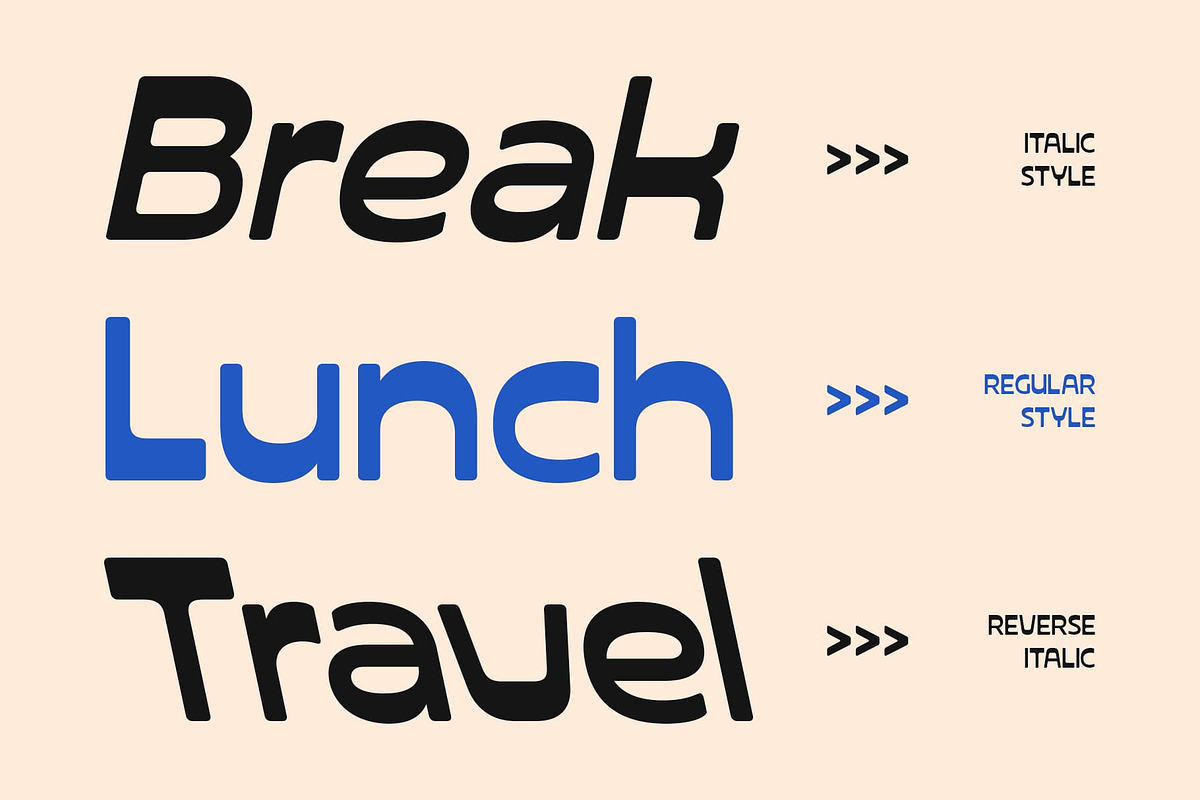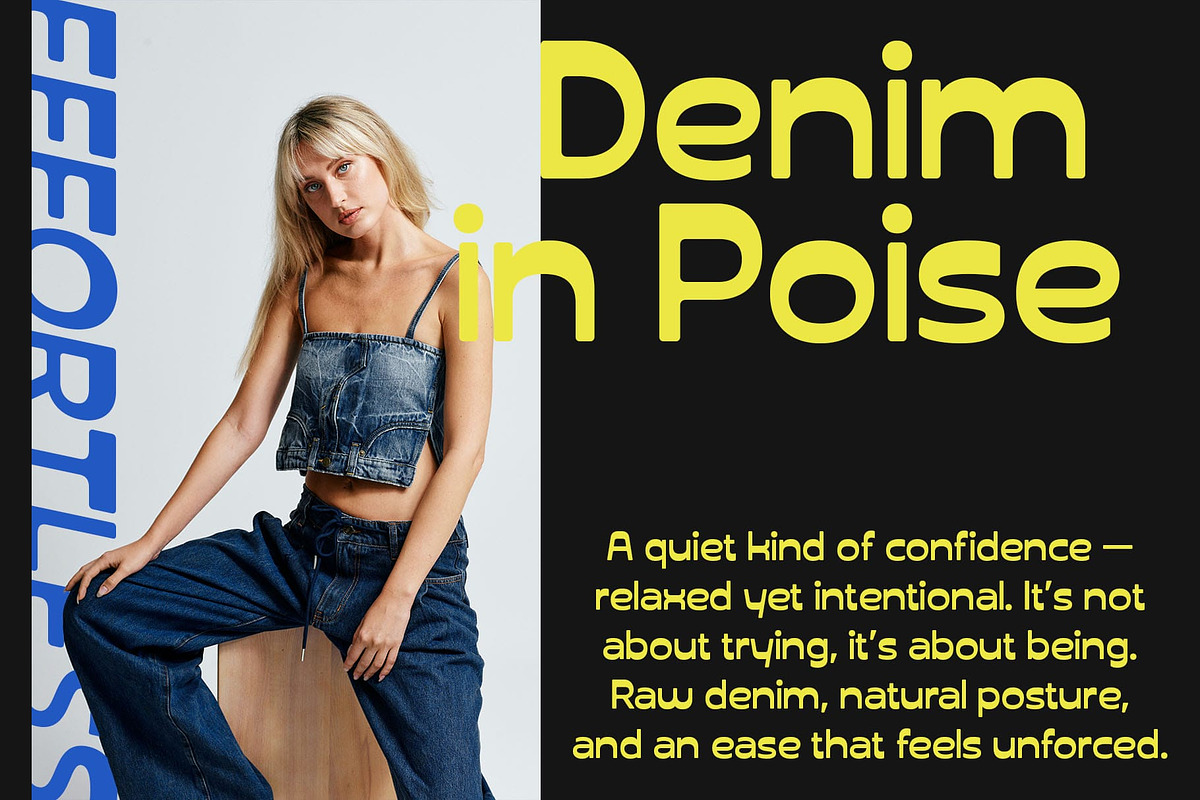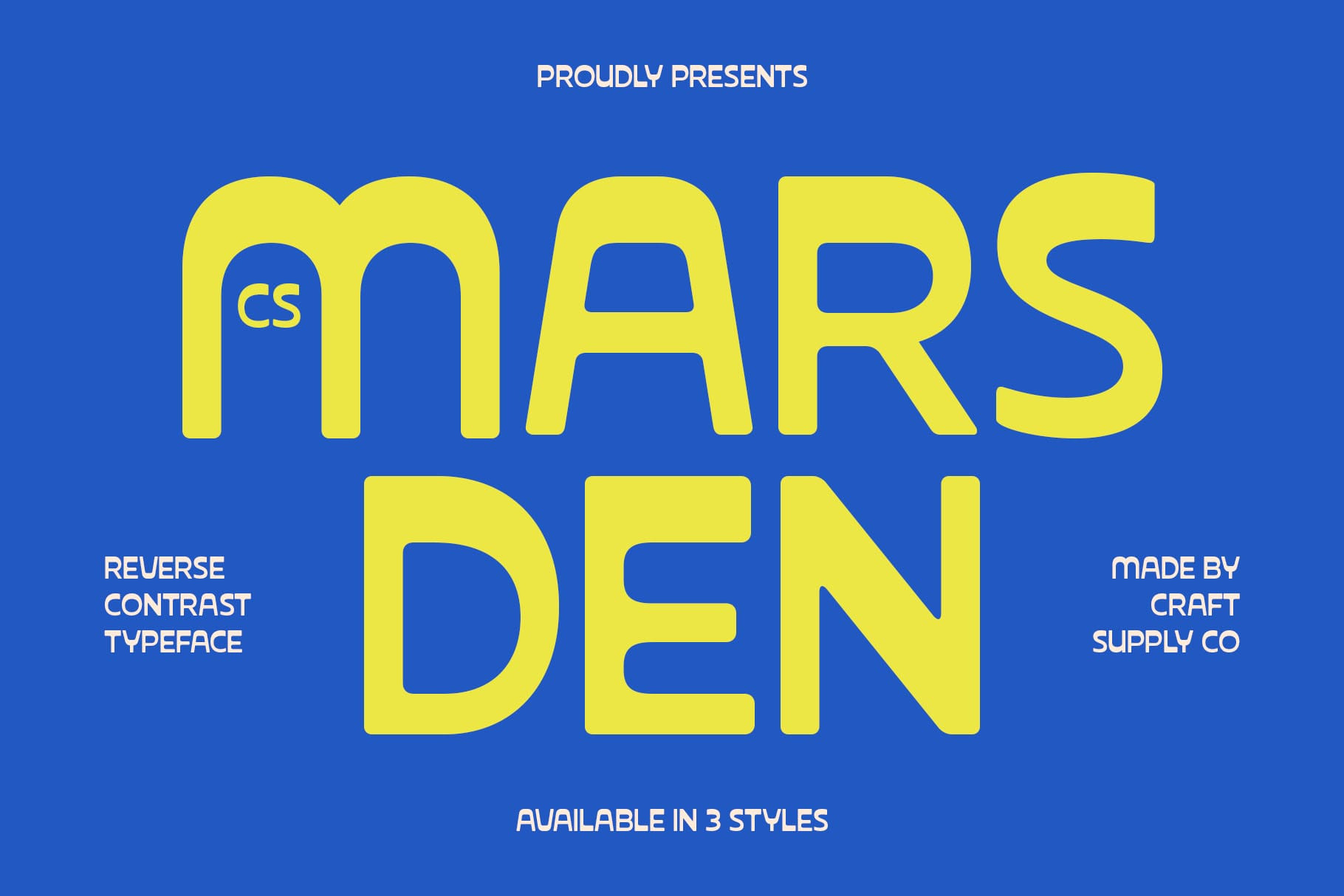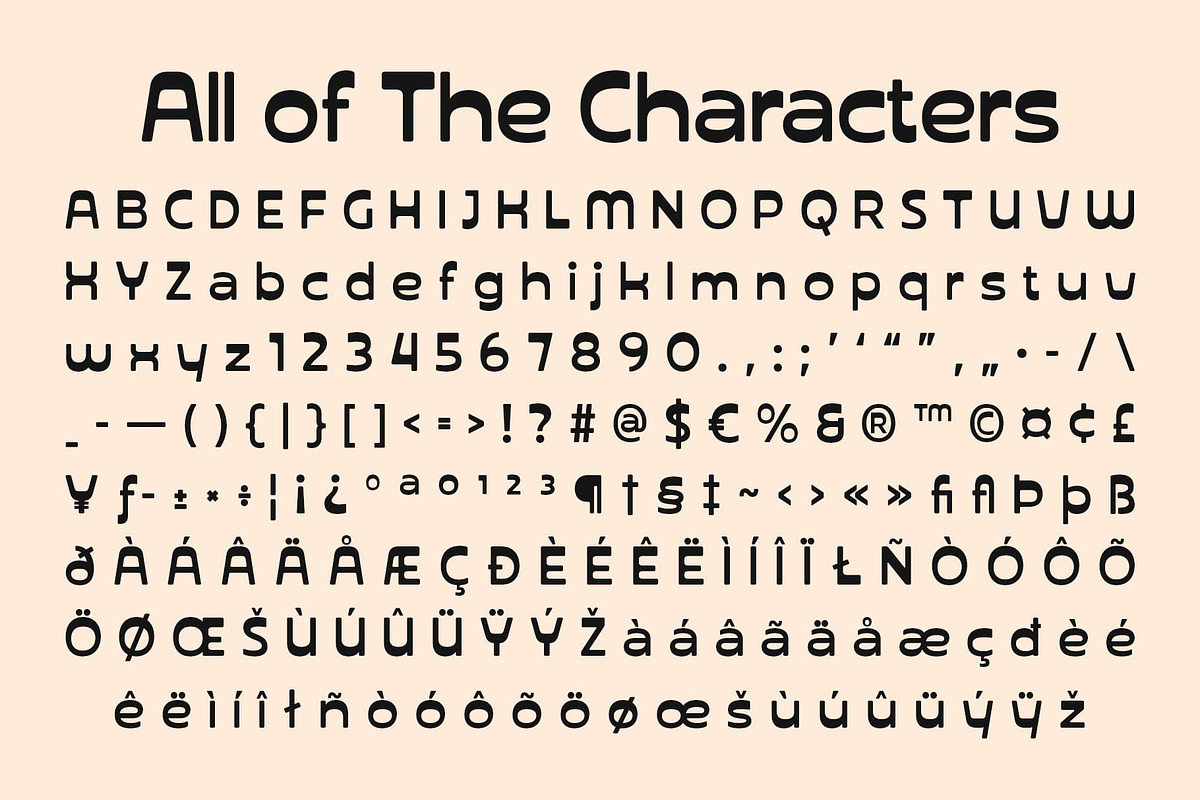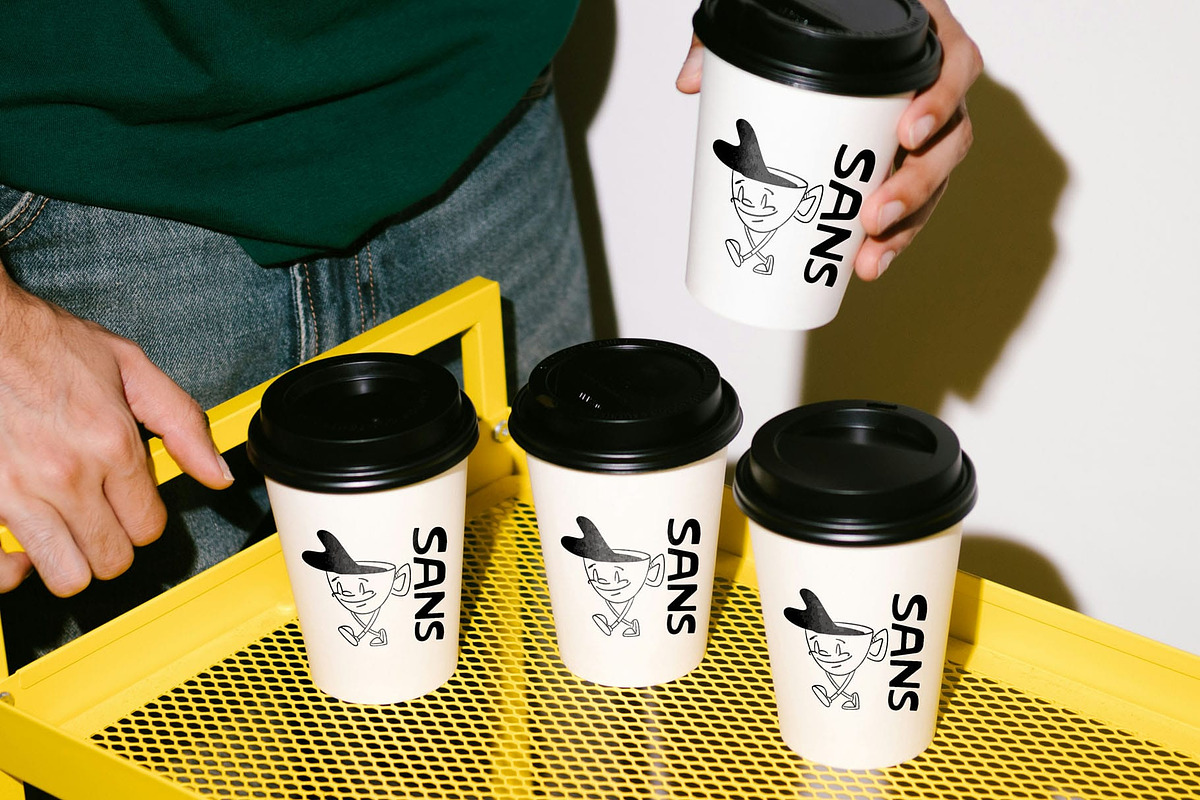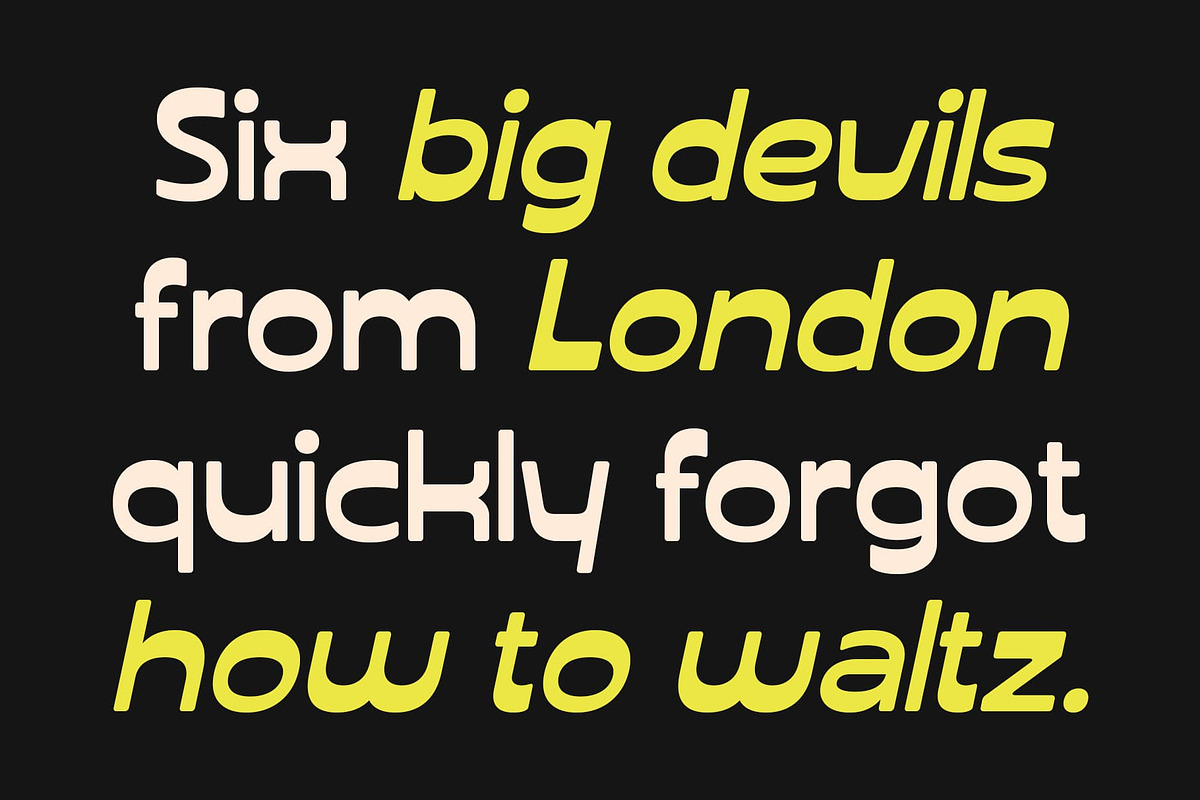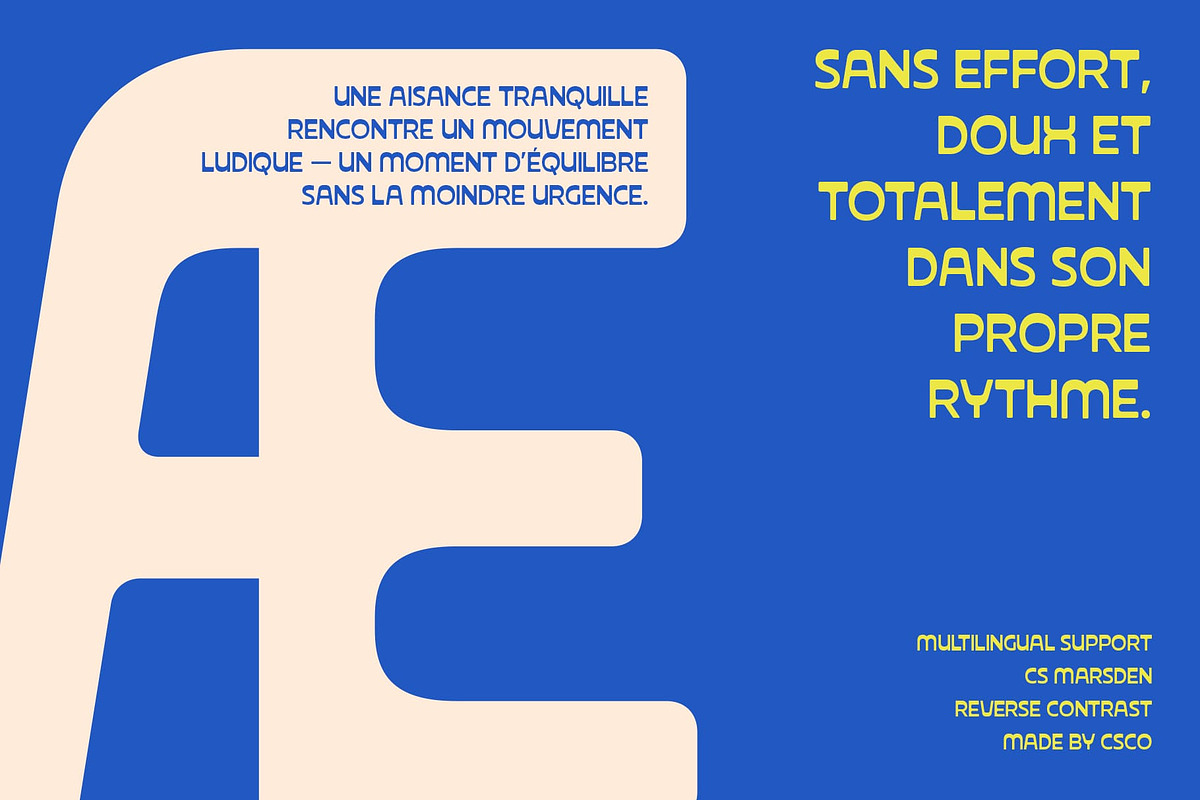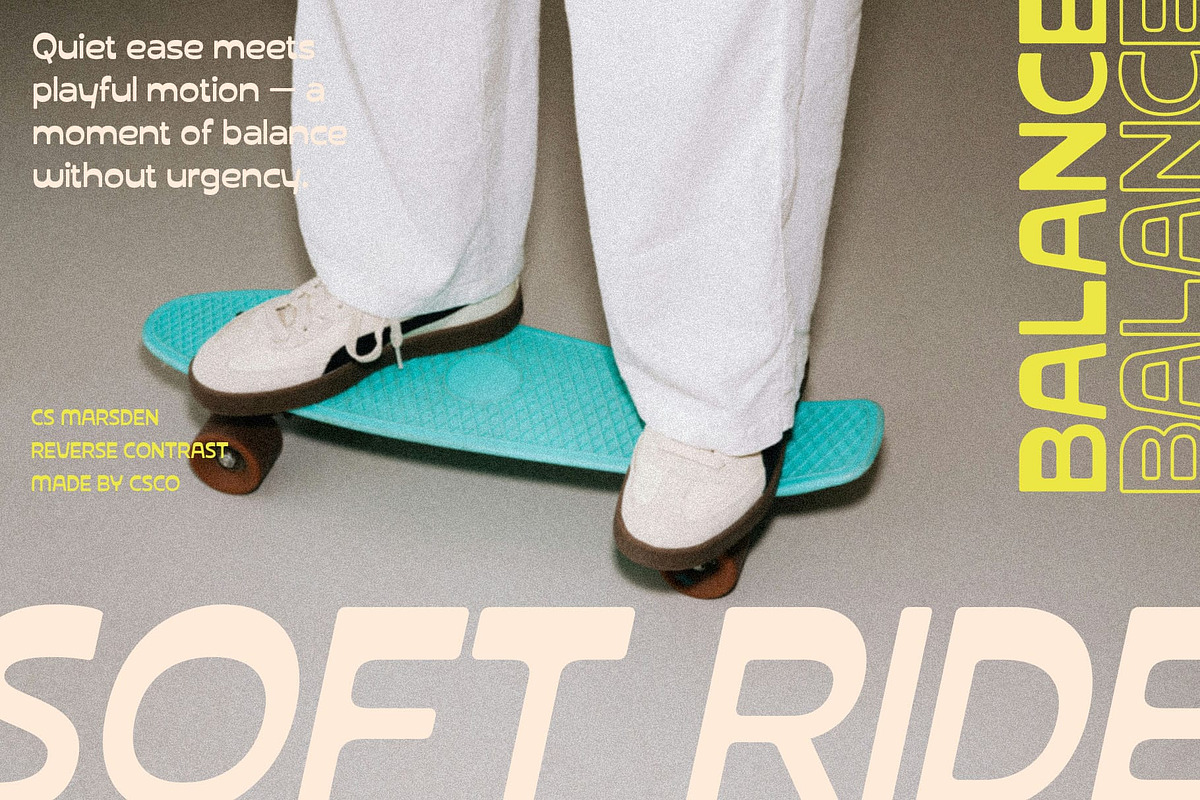
CS Marsden – Reverse Contrast Font
CS Marsden – Bold Reverse Contrast with Modern Flair
Reverse Contrast Sans Serif with Distinctive Style This is a modern and stylish reverse contrast display font that commands attention with its bold shapes and modular design. Its unique inversion of traditional stroke contrast creates a visually striking effect, blending contemporary aesthetics with a nod to classic typographic principles. Each letter exudes character, making it perfect for designs that want to stand out with confidence.
Modular Geometry for Modern Precision The carefully crafted modular shapes of this font provide balance and harmony across every character. This geometric precision enhances readability while delivering a sleek, structured look, allowing designers to merge modernity with timeless style.
Bold Presence for Impactful Design With its reverse contrast construction, this font creates a dynamic and expressive visual rhythm. It’s ideal for projects that require a strong typographic voice, from posters and branding to editorial layouts, ensuring that every message is both memorable and visually engaging.
Perfect for Distinctive Branding and Promotion This font excels in creative projects that celebrate classic design movements while embracing modern sensibilities. Its bold, modular, and stylish aesthetic makes it the perfect choice for distinctive branding, promotional campaigns, and layouts that demand both sophistication and impact.